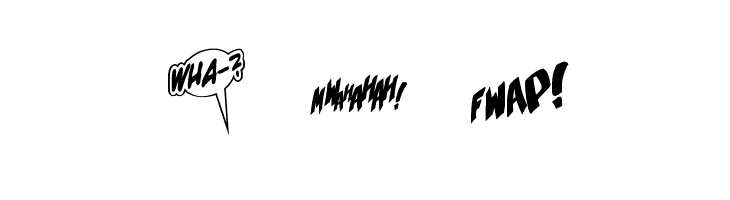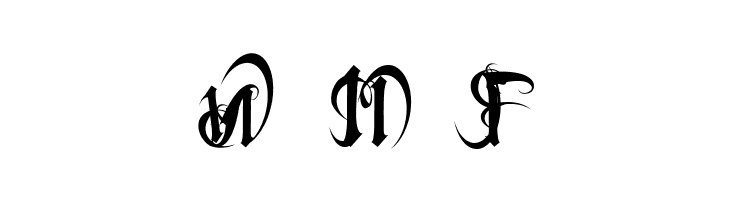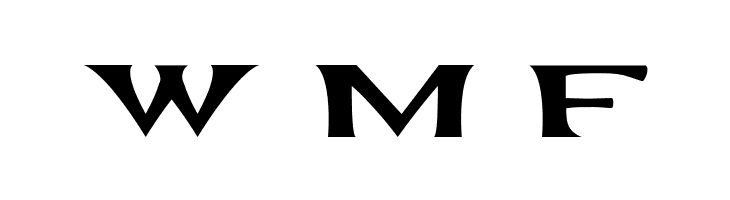
A chaotic, distressed font with bold, jagged strokes and a grunge aesthetic.
A bold, dynamic comic book style font with exaggerated letterforms.
A bold, decorative font with a vintage horror comic book style.
A bold, geometric font with high contrast and sharp angles, perfect for dramatic designs.
An ornate and historical font with intricate, dramatic letterforms typical of the Schwabacher style.
An edgy, thorn-inspired font with a gothic and aggressive style.
An ornate, decorative font with intricate flourishes and a vintage gothic style.
A bold, blackletter-style font with sharp, angular edges.
A bold, 3D shadow font with a rugged, textured edge for dramatic impact.
A bold Blackletter font with dramatic, angular strokes and a medieval aesthetic.
A bold, 3D Schwabacher-style font with a blackletter influence and shadow effect.
A bold, gothic-inspired font with sharp serifs and a dramatic presence.